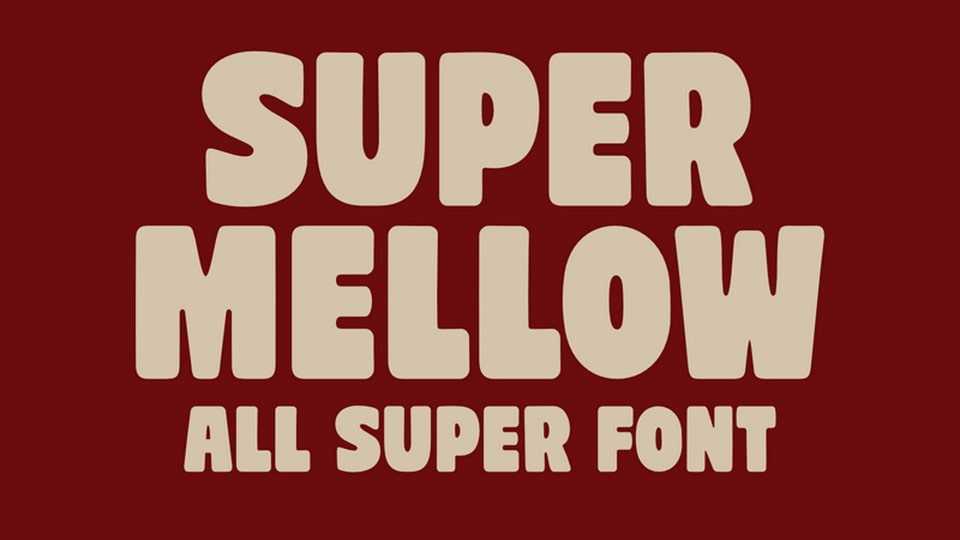
Download Super Mellow font, a bold, rounded display typeface with a warm, relaxed character. Its smooth shapes, generous curves, and friendly proportions create a soft yet confident look that feels welcoming and easygoing.